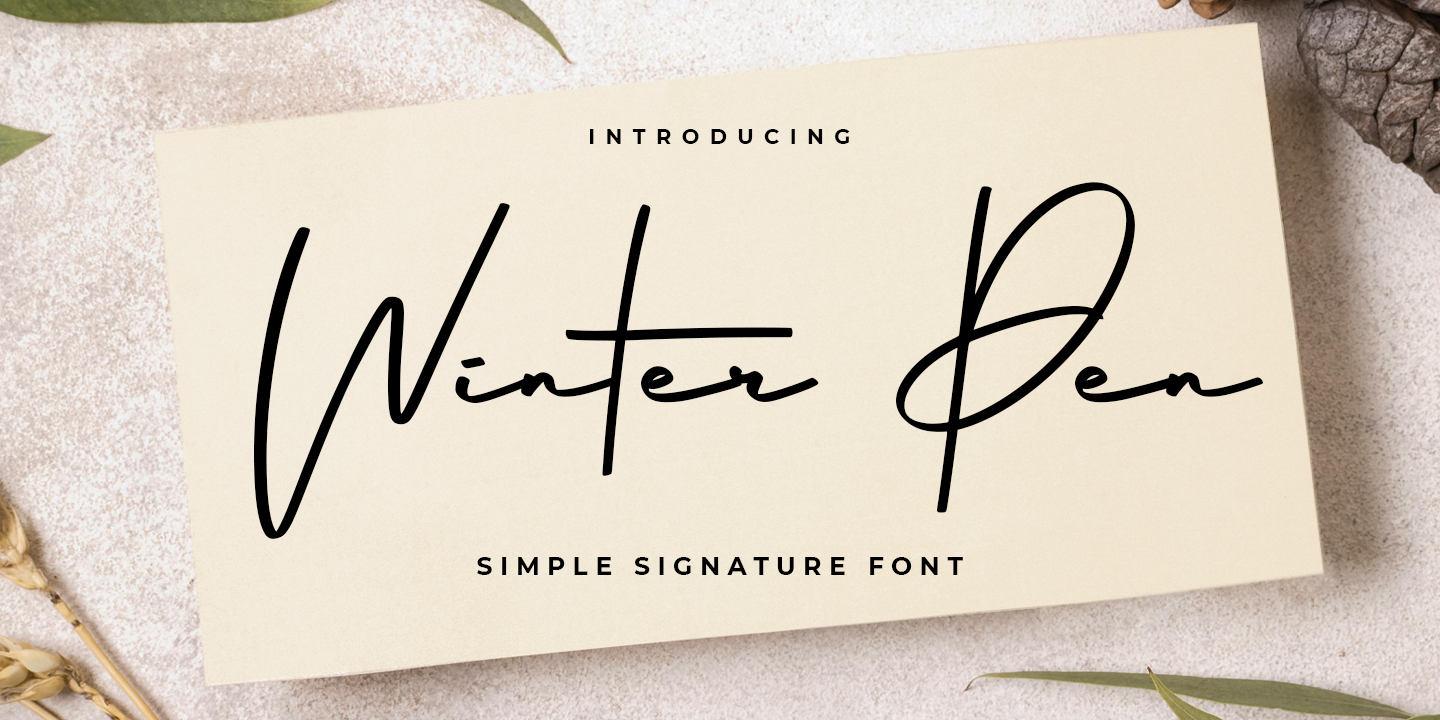
Capture the delicate beauty of frost-kissed calligraphy with Winter Pen Font Free Download – a stunning handwritten script that mimics the elegant dance of a pen on crisp winter paper. This flowing typeface combines natural variation with refined consistency, perfect for projects needing organic elegance with professional polish.
Why Winter Pen Shines:
Authentic Ink Flow Variations for realistic texture
80+ Contextual Alternates preventing repetition
Perfect Holiday Card Readability
Subtle Winter-Themed Swashes
Seasonal & Elegant Applications:
Handcrafted holiday invitations
Luxury winter product packaging
Cozy café menu designs
Feminine brand identities
Frosted cosmetic labels
Calligraphy Tip: Use with icy blue color palettes and subtle snowflake textures. Layer two instances with slight opacity differences for dimensional depth.